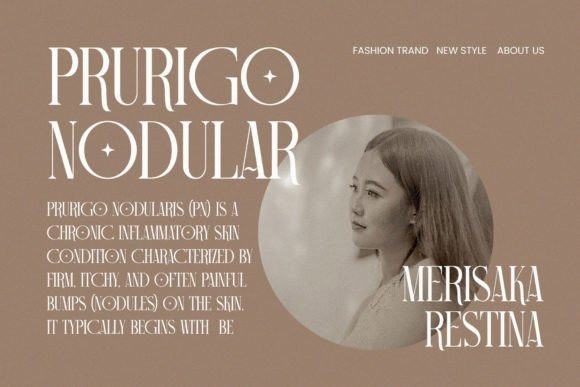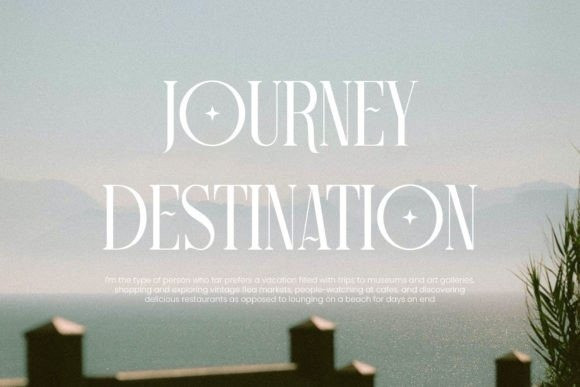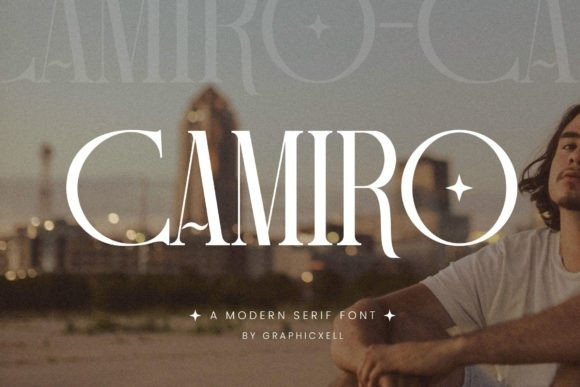
Castro Font
Castro Font is a modern elegant serif font that exudes sophistication and style. Its graceful letterforms blend classic charm with a contemporary twist, making it perfect for projects that demand a touch of refinement. With its balanced proportions and fine detailing, Castro adds a timeless touch to any design, whether it’s for branding, editorial layouts, or elegant invitations.